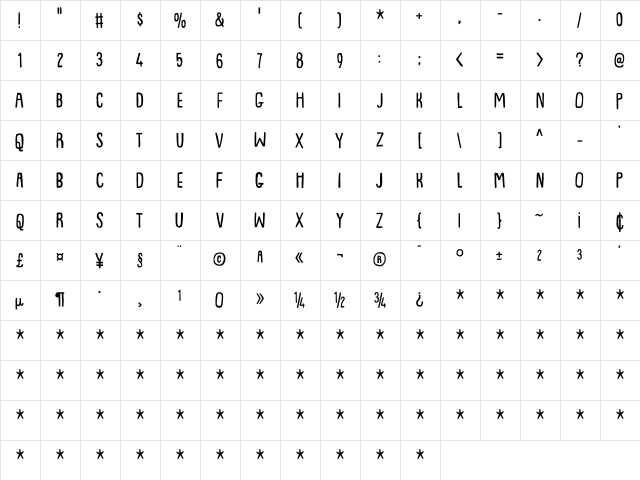
Lemonism DEMO Regular
Design Context for Lemonism DEMO Typeface
Lemonism DEMO offers clean, dependable letterforms without strong stylistic allegiance, making it a practical choice for designers who need flexibility.